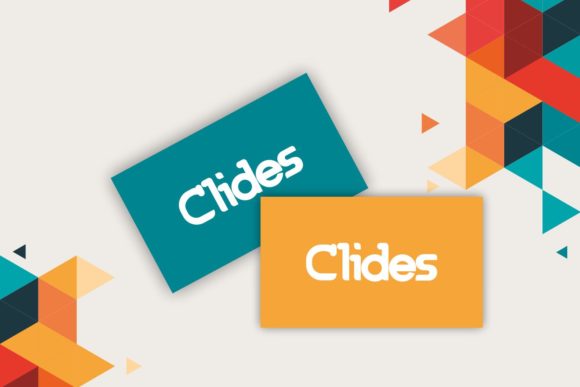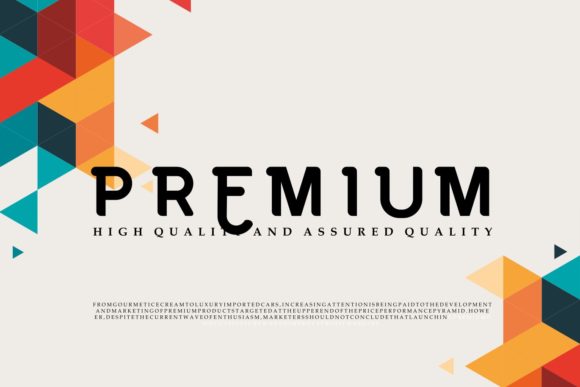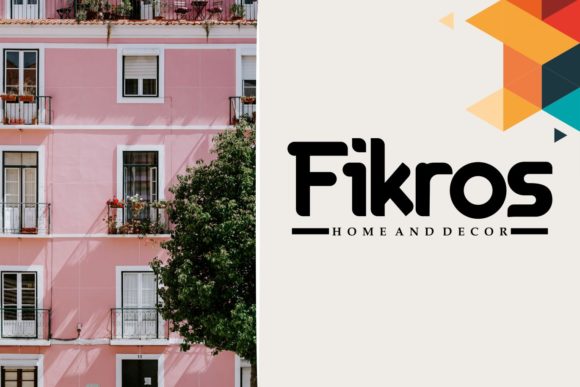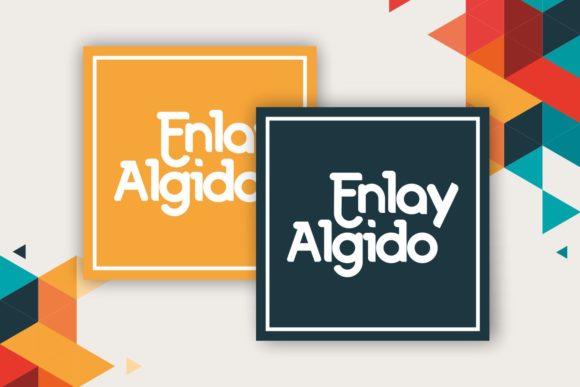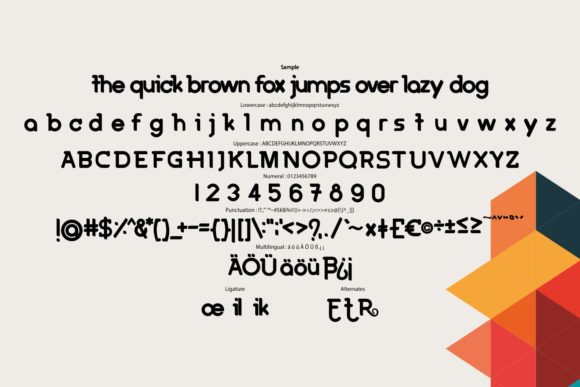
The Perfect Blend of Simplicity and Elegance: Bigote Font
As designers, we’ve all been there – staring at a blank canvas, struggling to find the perfect font to bring our creative ideas to life. The right font can make all the difference, elevating our designs from ordinary to extraordinary. And that’s where Bigote Font comes in – a simple, yet elegant display font that’s about to revolutionize your creative process.
Bigote Font is a carefully crafted, neat lettered display font designed to add a touch of sophistication to your designs. Whether you’re working on a branding project, a marketing campaign, or a personal creative venture, Bigote Font is the perfect addition to your toolkit. Its versatility and timeless charm make it a valuable asset for designers looking to add a unique touch to their work.
Bigote Font Key Features
- Unique Characteristics: Bigote Font features a distinctive, hand-drawn style with thick lines and rounded edges, giving it a playful and whimsical feel.
- Font Family: Bigote Font is part of a larger font family, offering a range of weights and styles, from light to bold, and from regular to italic.
Bigote Font Review
Overall, I found Bigote Font to be a unique and charming addition to any design project. ✨ Its quirky, hand-drawn feel instantly grabs attention and adds a touch of whimsy to text-based elements. I particularly enjoy using it for headings and titles, as its distinctive flair really makes a statement.
One of the standout features of Bigote Font is its versatility. It comes in a range of weights, from light to bold, allowing designers to tailor the font to suit their specific needs. ✨ Additionally, its OpenType features enable a wide range of stylistic variations, making it perfect for creating custom typography solutions.
- ⚠️ Legibility can be a concern in smaller font sizes, as the intricate details of the font may become difficult to read.
- ⚠️ The font’s irregular shape may not be suitable for large blocks of text, as it can lead to visual fatigue.
In conclusion, Bigote Font is a great choice for designers looking to add a touch of personality to their projects. While it may not be suitable for every situation, its unique charm and versatility make it a valuable addition to any font collection.
Tips for Getting the Most Out of Bigote Font
Bigote Font is a versatile font that can be used in a variety of contexts, including:
- Artistic and creative projects
To get the most out of Bigote Font, experiment with different font sizes, colors, and combinations to find the look that works best for your project.